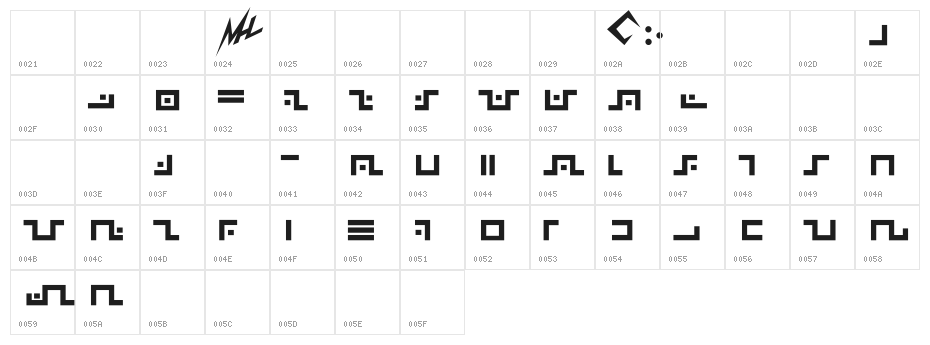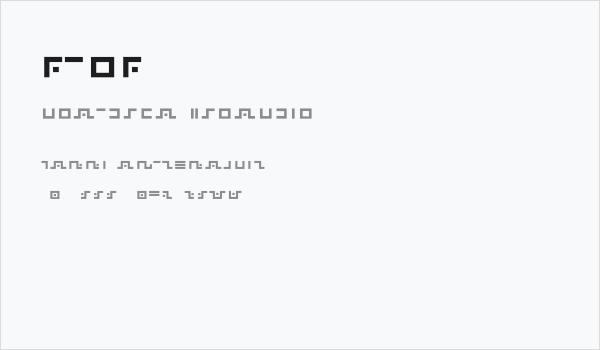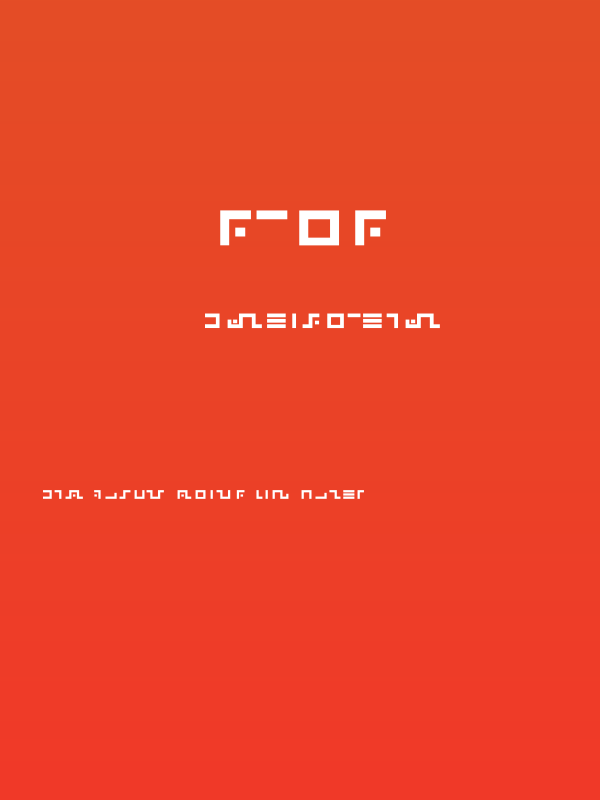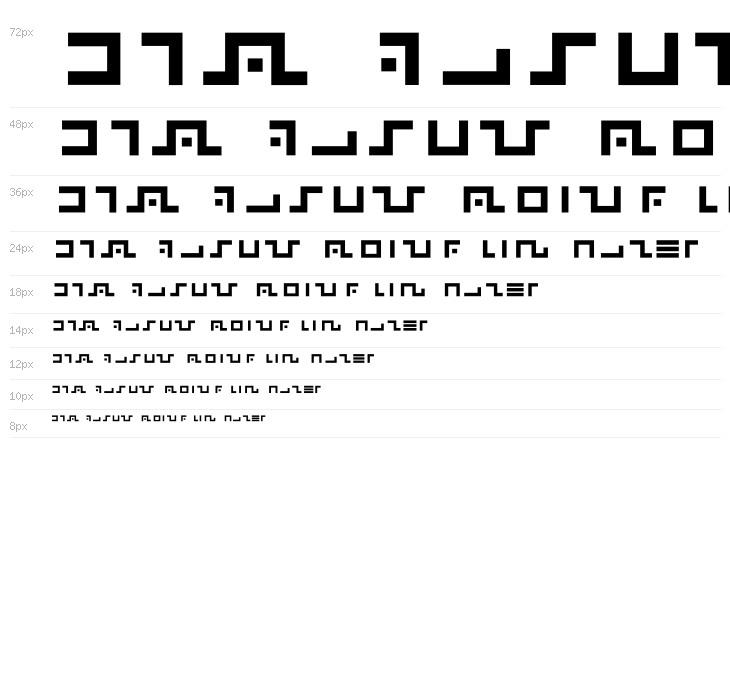
Narn Font
Narn Description
This font is characterized by its clean and modern aesthetic, featuring uniform stroke widths and a balanced structure. The uppercase letters are bold and assertive, while the lowercase letters maintain a consistent height, providing a harmonious appearance. The numerals are clear and easily distinguishable, making them suitable for various applications. Special characters are well-defined, enhancing the font's versatility. The overall design is sleek and professional, making it ideal for both digital and print media.